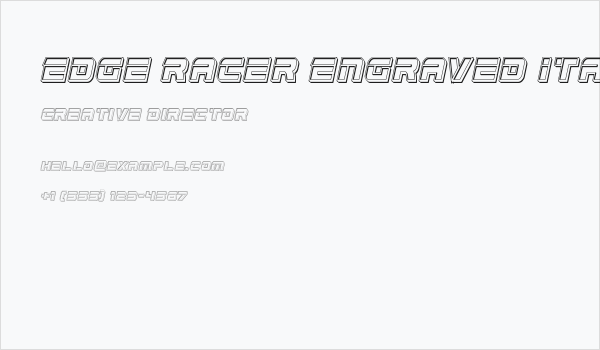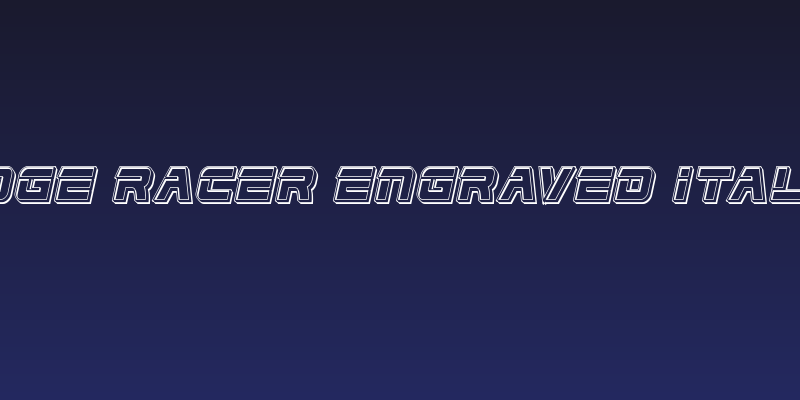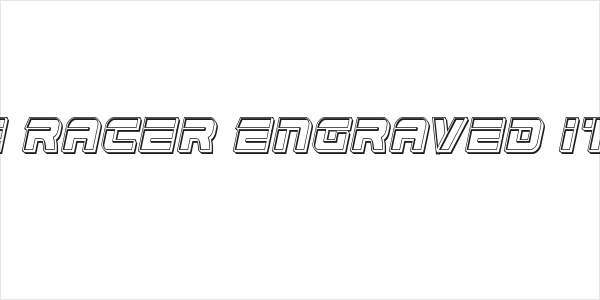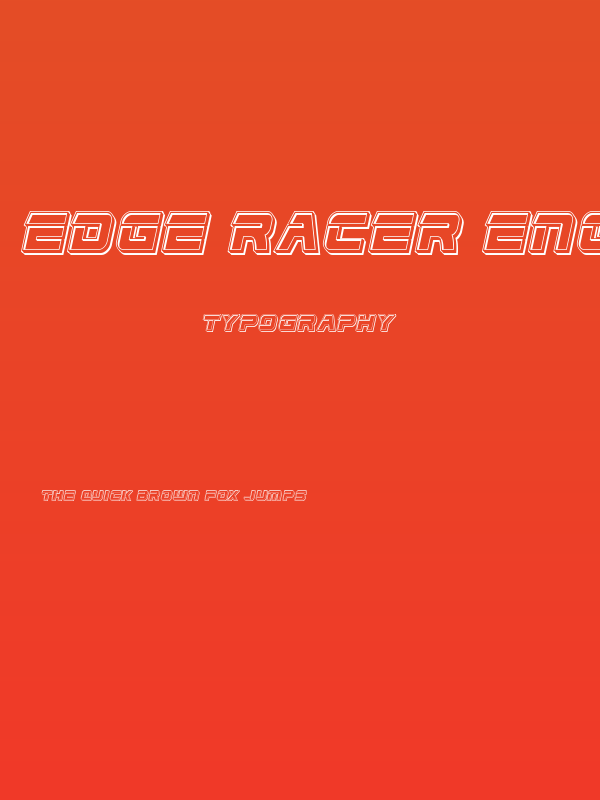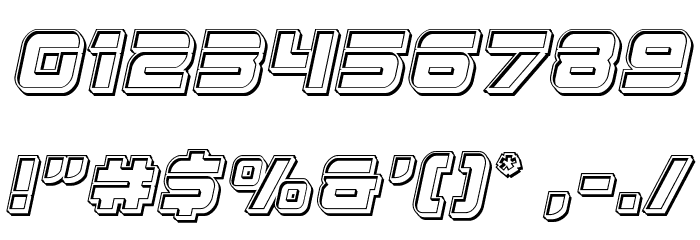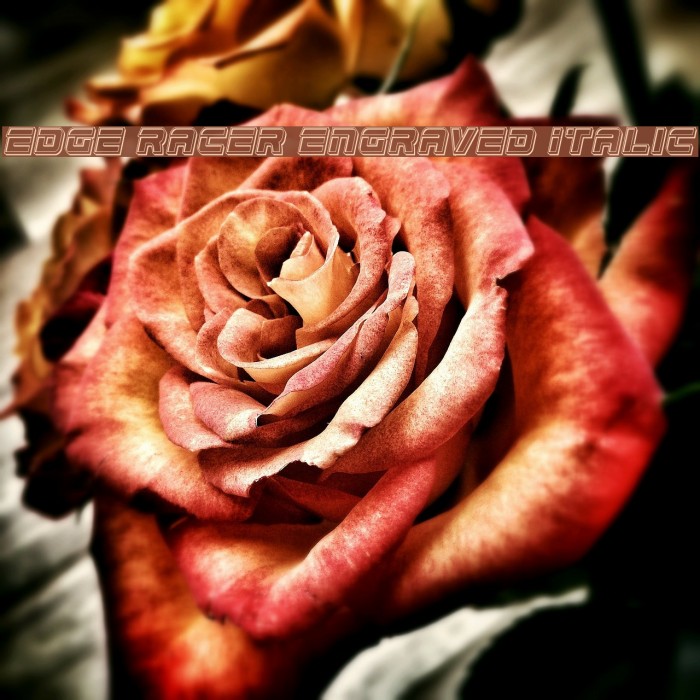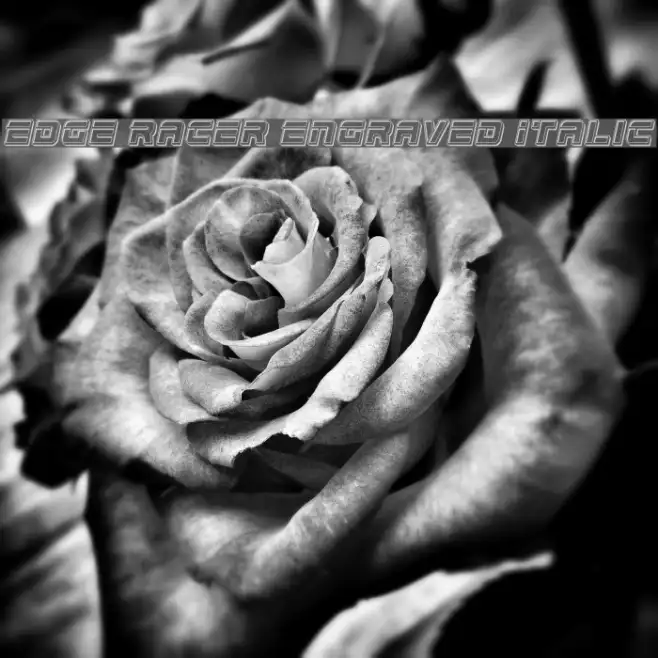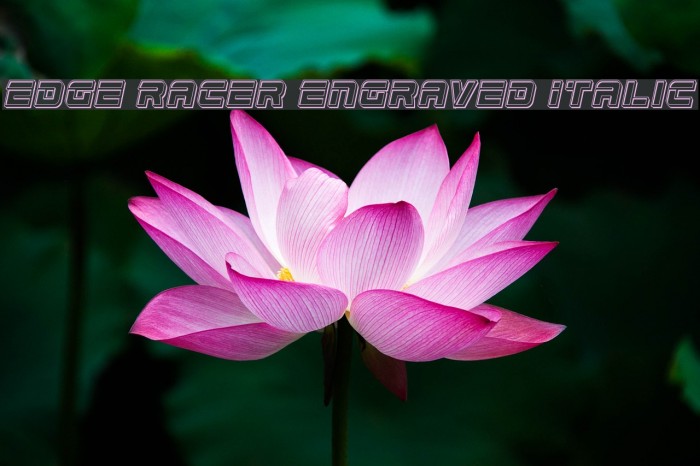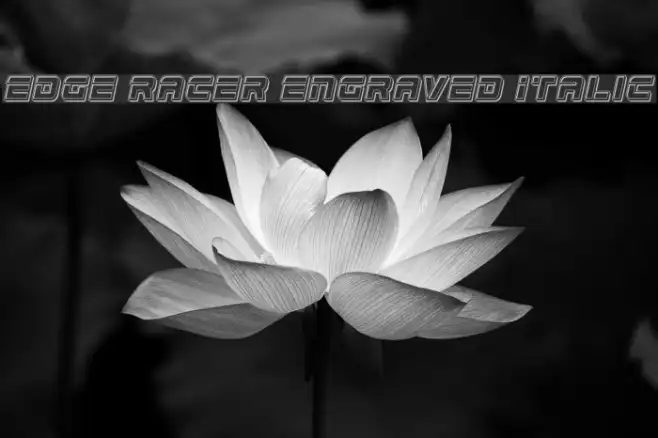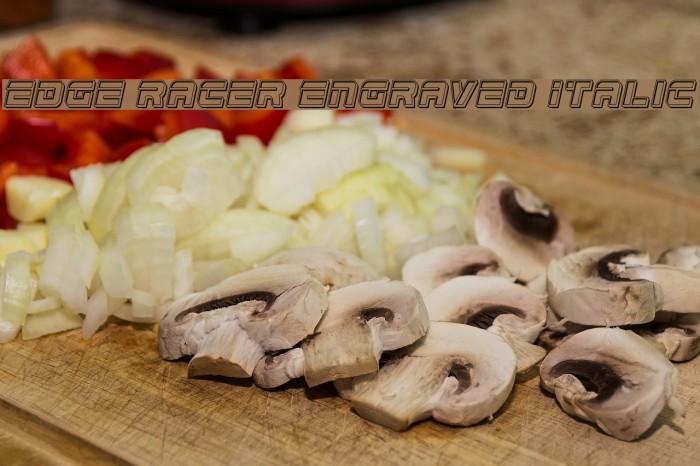
Edge Racer Engraved Italic Font
Edge Racer Engraved Italic Description
This font features a bold, geometric design with a distinct engraved effect, giving it a three-dimensional appearance. The characters are outlined with a double line, creating a sense of depth and movement. The italic slant adds a dynamic and futuristic feel, making it ideal for projects that require a modern and edgy look. The uppercase and lowercase letters maintain a consistent style, with angular edges and a strong presence. The numerals and special characters are designed to match the overall aesthetic, ensuring a cohesive appearance across all text elements.
| Proposed Projects | Ideal for use in video game titles, sci-fi movie posters, technology branding, and sports team logos. |